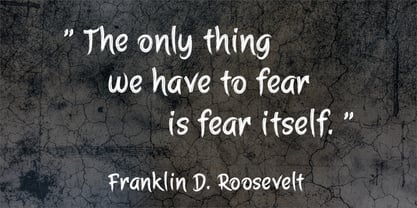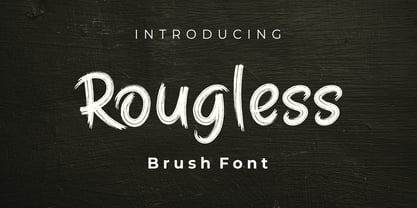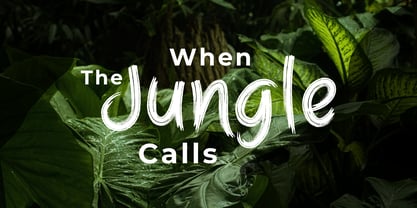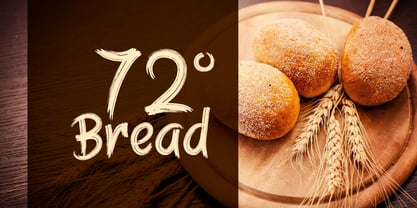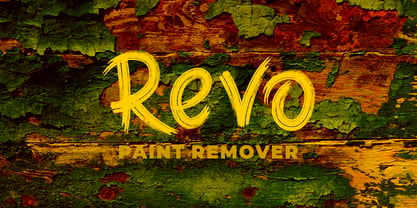
Rougless
by ARToni
The Rougless Font Family was designed by Anthonie Van Hayu and published by ARToni. Rougless contains 1 styles.
Rougless is designed to mimic the look of text written with an ink brush, often resembling the strokes used in calligraphy. it tend to have elegant strokes, giving a casual and relaxed feel to the text. with its dynamic and artistic appearance, it suitable for headlines, logos, creative presentations and more.
Designers: Anthonie Van Hayu
Publisher: ARToni
Foundry: ARToni
Design Owner: ARToni
Rougless